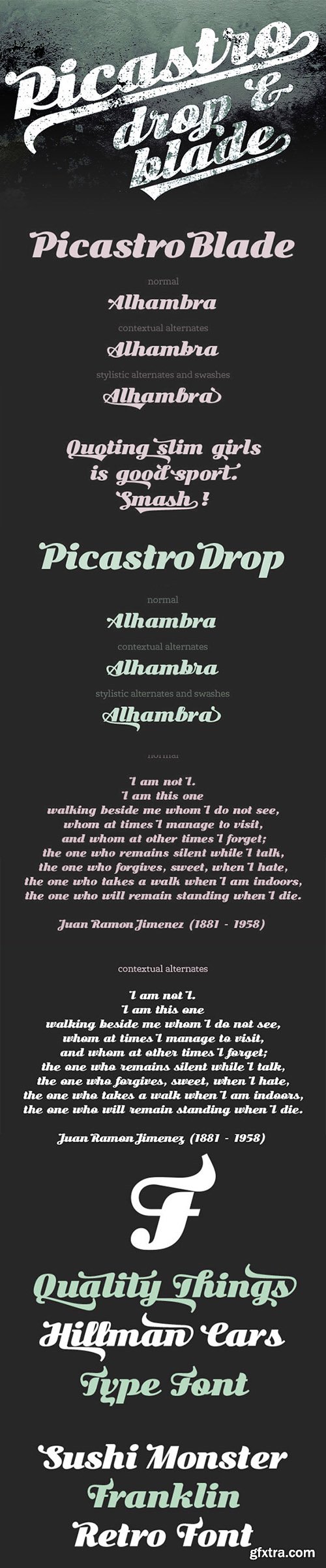
- Picastro Bold by TypeFaith Fonts is a firm script with lovely swashes. It is a characteristic font with a retro feel. It contains a full set of ligatures, alternatives, swashes and special characters to end. The OpenType layout features can be used to position or substitute glyphs.